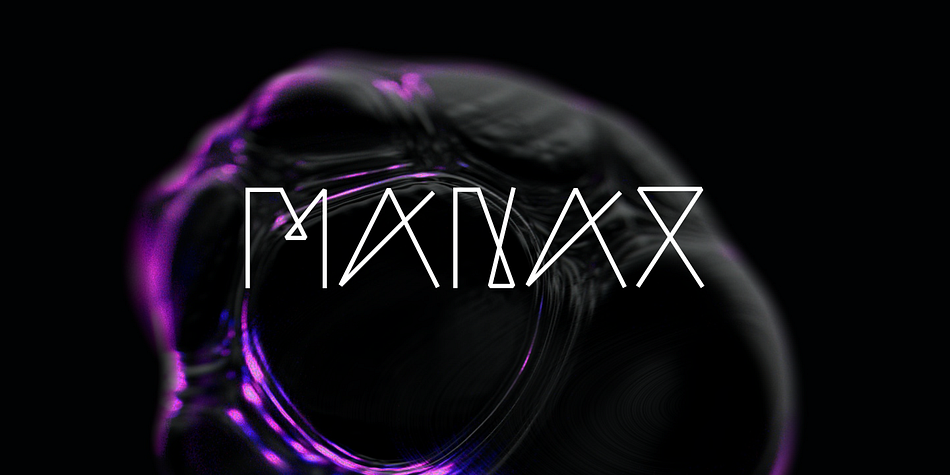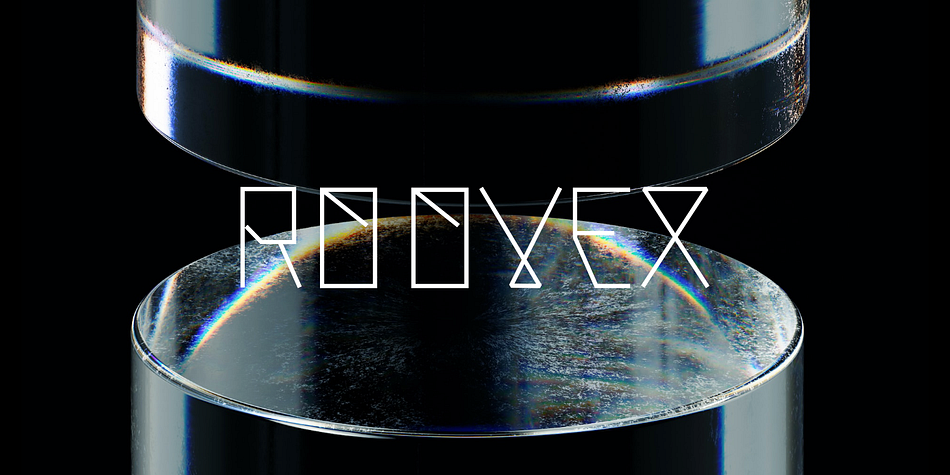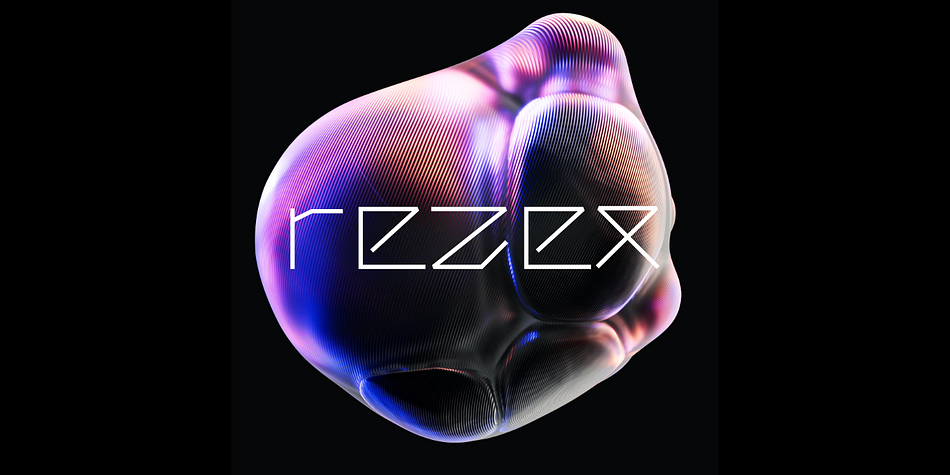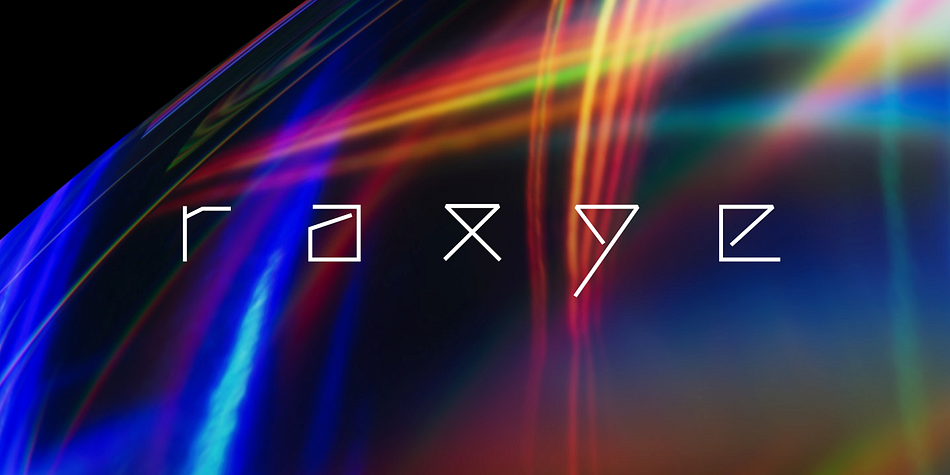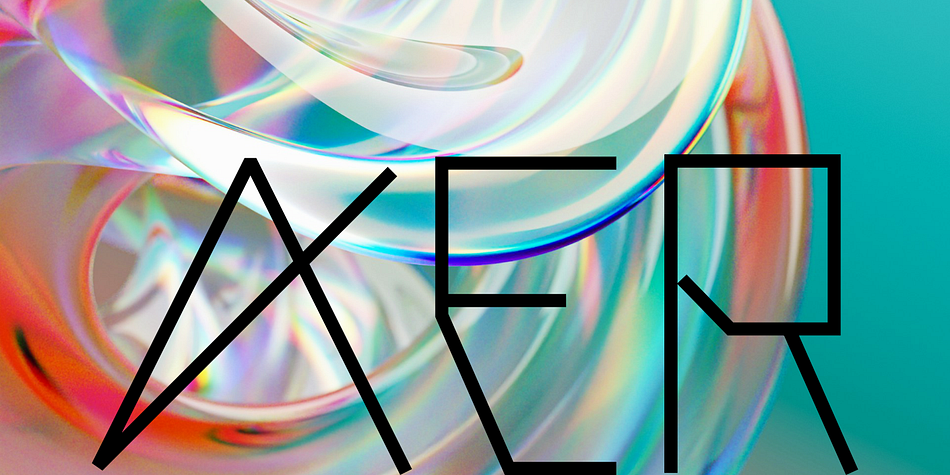
raxye
raxye is a display sans font family published by ffeeaarr.
is a testament to modernity, featuring clean, minimalist lines that exude a sense of precision and technological advancement. Its characters are meticulously crafted, embodying a sleek aesthetic that effortlessly captures the essence of the digital age.
The font’s dynamic soul comes to life through its innovative design elements. Each letter is infused with a sense of movement, as if propelled forward by the relentless force of progress. The sharp angles and fluid curves create a visual rhythm that mirrors the pulse of a rapidly evolving world.